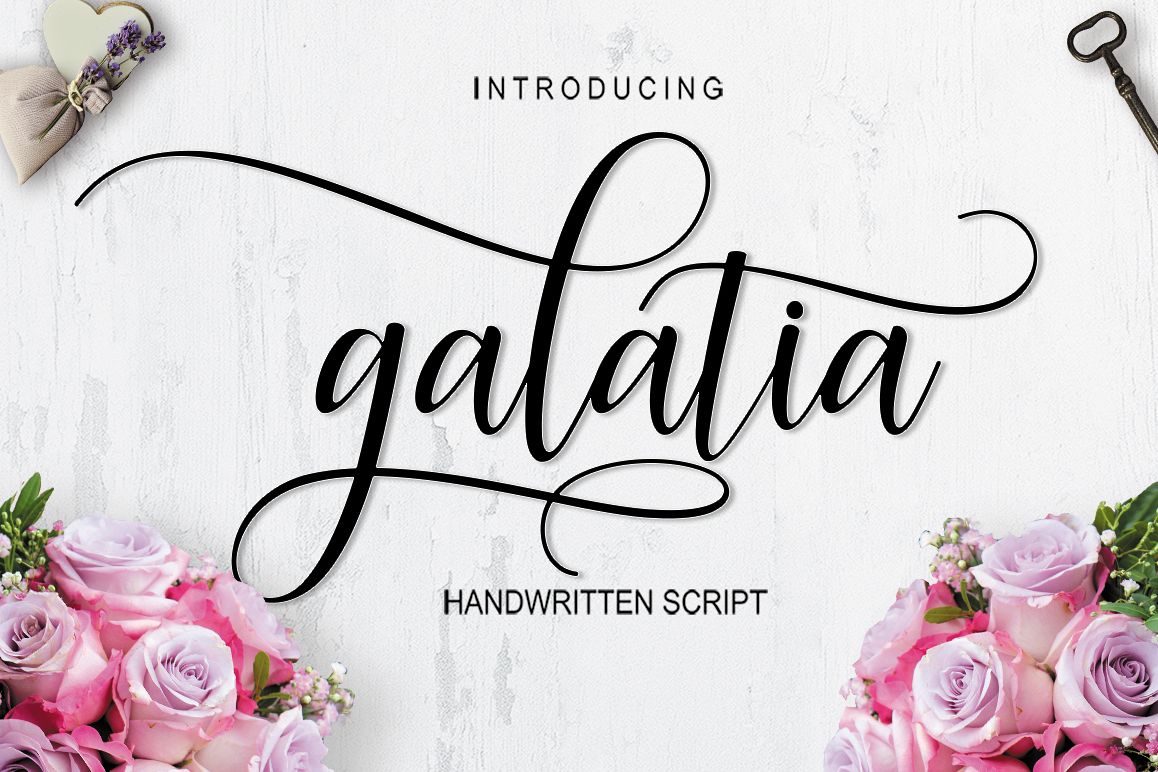
Galatia Script
Galatia script
Galatia script a new fresh & modern script with a handmade calligraphy style, decorative characters and a dancing baseline! So beautiful on invitation like greeting cards, branding materials, business cards, quotes, posters, and more!!
Galatia script come with 444+ glyphs. The alternative characters were divided into several Open Type features such as Swash, Stylistic Sets, Stylistic Alternates, Contextual Alternates. The Open Type features can be accessed by using Open Type savvy programs such as Adobe Illustrator, Adobe InDesign, Adobe Photoshop Corel Draw X version, And Microsoft Word. And this Font has given PUA unicode (specially coded fonts). so that all the alternate characters can easily be accessed in full by a craftsman or designer.
Galatia script :